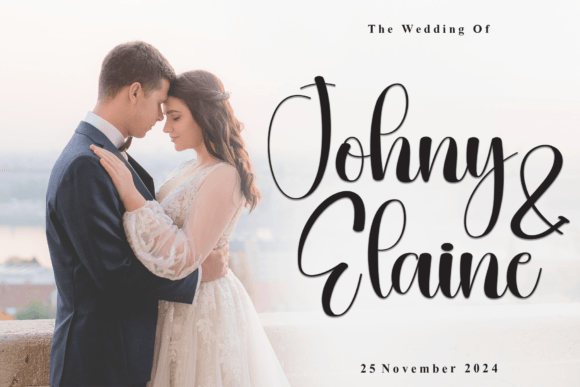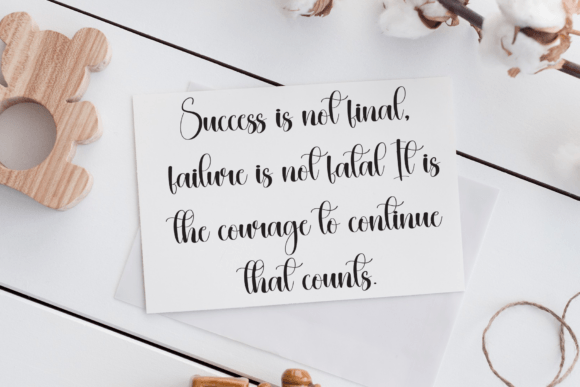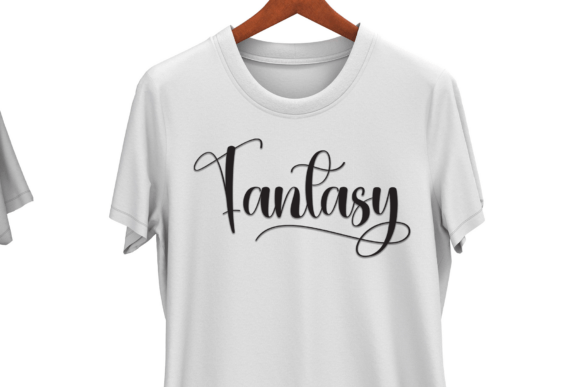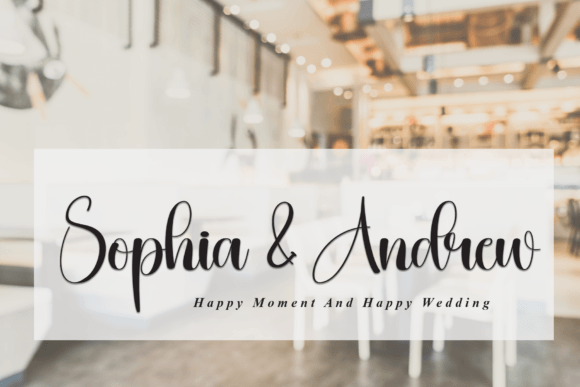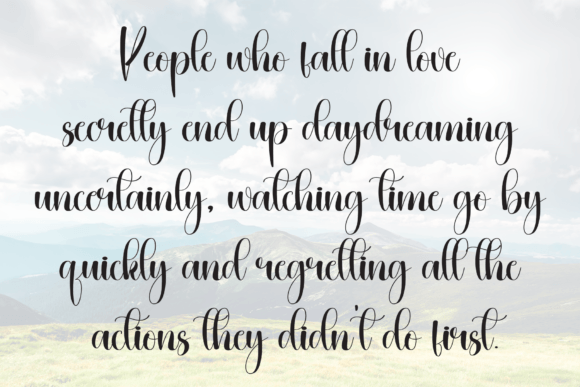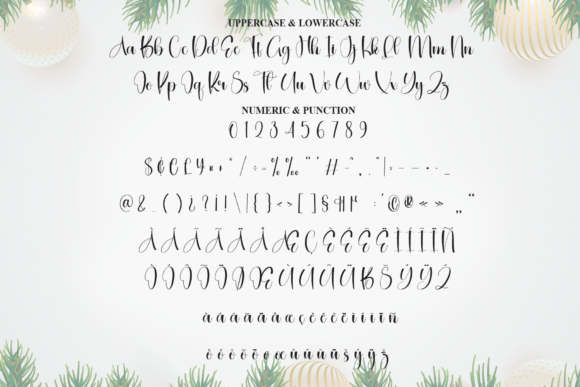
Introducing Christmas Saturday Font: The Perfect Handwritten Touch for Your Designs
Are you looking for a font that adds a personal touch to your designs? Do you want to create something unique and eye-catching for the holiday season? Look no further than Christmas Saturday Font, a beautiful handwritten font with a casual, one-of-a-kind style. In this article, we’ll explore the features and benefits of Christmas Saturday Font, and how it can elevate your designs to the next level.
What is Christmas Saturday Font?
Christmas Saturday Font is a handwritten font designed to bring a touch of warmth and personality to your designs. With its smooth, flowing lines, this font has a relaxed and casual feel that’s perfect for creating a sense of comfort and familiarity. Whether you’re working on a holiday project, a branding campaign, or simply want to add some personality to your digital content, Christmas Saturday Font is the perfect choice.
Key Features of Christmas Saturday Font
- Handwritten style: Christmas Saturday Font has a genuine handwritten look that sets it apart from more traditional fonts.
- Casual and unique: This font has a one-of-a-kind style that’s perfect for adding a personal touch to your designs.
- Smooth, flowing lines: The smooth lines of Christmas Saturday Font give it a relaxed and effortless feel.
- Perfect for creative projects: Whether you’re a designer, crafter, or DIY enthusiast, Christmas Saturday Font is the perfect choice for adding a touch of creativity to your projects.
Benefits of Using Christmas Saturday Font
So why choose Christmas Saturday Font for your designs? Here are just a few benefits of using this amazing font:
- Adds a personal touch: With its handwritten style, Christmas Saturday Font adds a personal touch to your designs that’s hard to replicate with more traditional fonts.
- Creates a unique look: This font has a one-of-a-kind style that will set your designs apart from the crowd.
- Perfect for holiday projects: Christmas Saturday Font is the perfect choice for holiday projects, from Christmas cards to seasonal branding campaigns.
How to Use Christmas Saturday Font in Your Designs
Using Christmas Saturday Font in your designs is easy. Here are a few tips to get you started:
- Pair it with other fonts: Christmas Saturday Font pairs well with other fonts, such as sans-serif fonts for a modern look or script fonts for a more elegant feel.
- Use it for headings and titles: This font is perfect for headings and titles, where you want to make a statement and add some personality to your design.
- Add some texture: Consider adding some texture to your design to give it a more organic feel that complements the handwritten style of Christmas Saturday Font.
Who is Christmas Saturday Font for?
Christmas Saturday Font is perfect for designers, crafters, and DIY enthusiasts who want to add a personal touch to their projects. Here are a few examples of who might benefit from using this font:
- Graphic designers: If you’re a graphic designer looking for a unique font to add to your collection, Christmas Saturday Font is a great choice.
- Crafters: If you’re a crafter who loves to make things like cards, gift tags, and other paper crafts, this font is perfect for adding a personal touch to your creations.
- DIY enthusiasts: If you love to DIY and make things for your home or as gifts, Christmas Saturday Font is a great choice for adding a personal touch to your projects.
Christmas Saturday Font is a beautiful handwritten font that’s perfect for adding a personal touch to your designs. With its smooth, flowing lines and casual, unique style, this font is sure to become a favorite among designers, crafters, and DIY enthusiasts. Whether you’re working on a holiday project or simply want to add some personality to your digital content, Christmas Saturday Font is the perfect choice. So why wait? Download Christmas Saturday Font today and start creating something special!